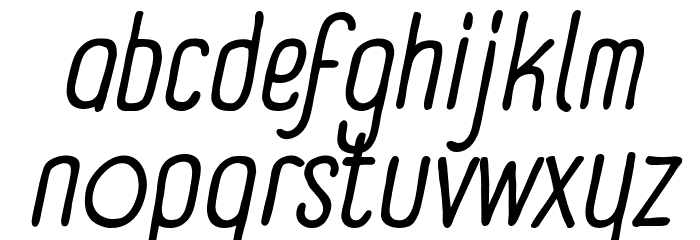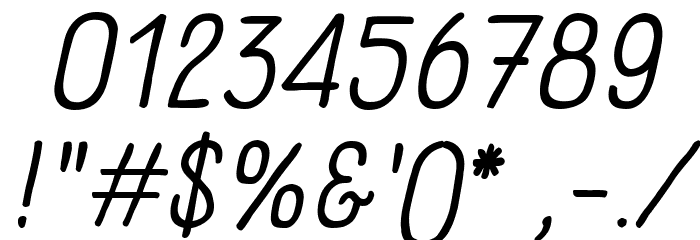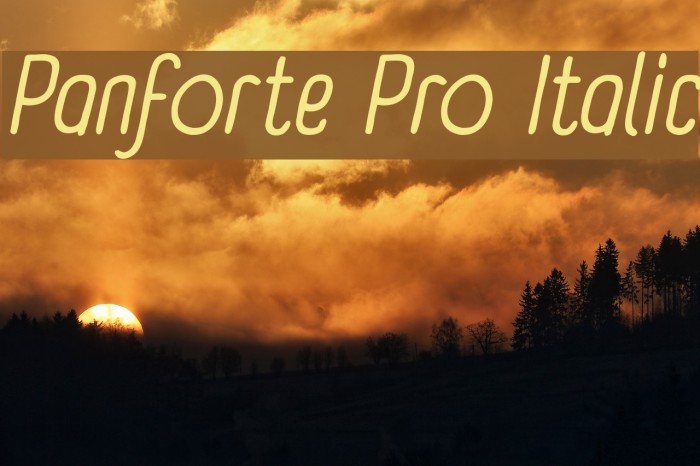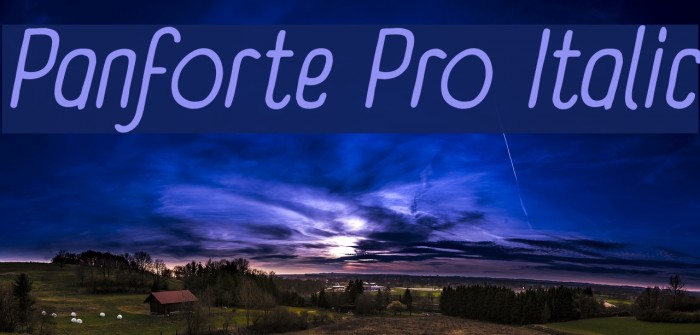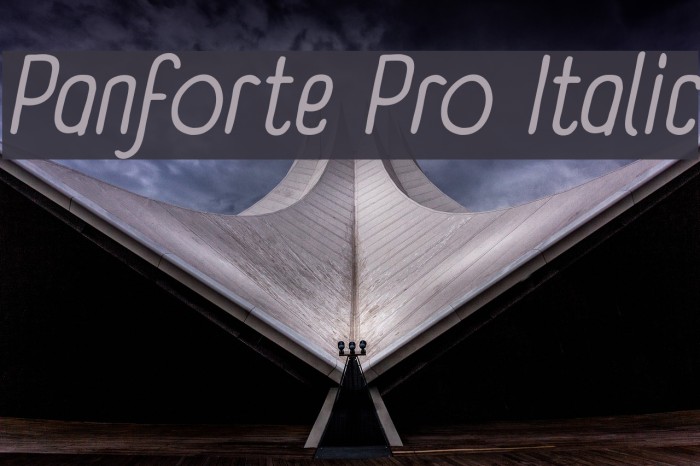
Panforte Pro Italic Font
This font features a sleek, italicized style with a modern touch. The characters are slightly elongated, giving them a unique and elegant appearance. The strokes are consistent in width, providing a clean and uniform look. The uppercase letters are tall and narrow, while the lowercase letters maintain a smooth and flowing form. The numbers are well-proportioned, ensuring readability. Special characters are designed to complement the overall aesthetic, making this font versatile for various applications.
A modern, italicized font with sleek, elongated characters.
- Proposed Projects: Ideal for branding, fashion magazines, modern websites, and creative projects requiring a stylish and contemporary look.
- Use Case: Headlines, Logos, Branding